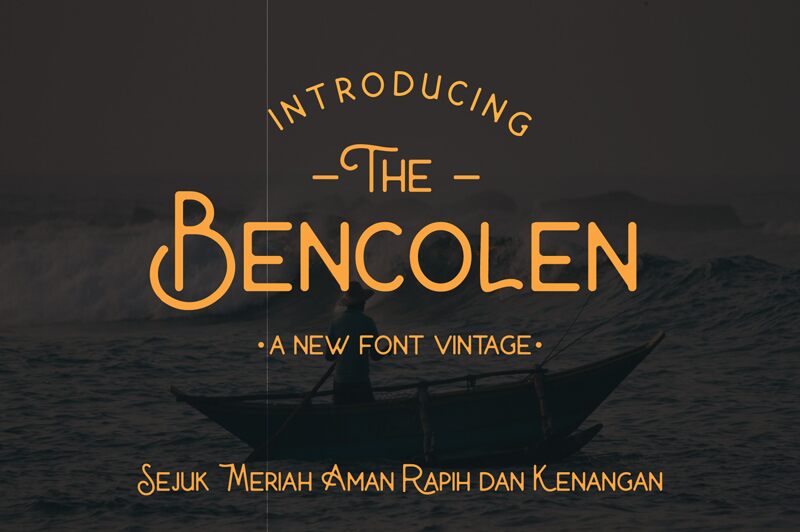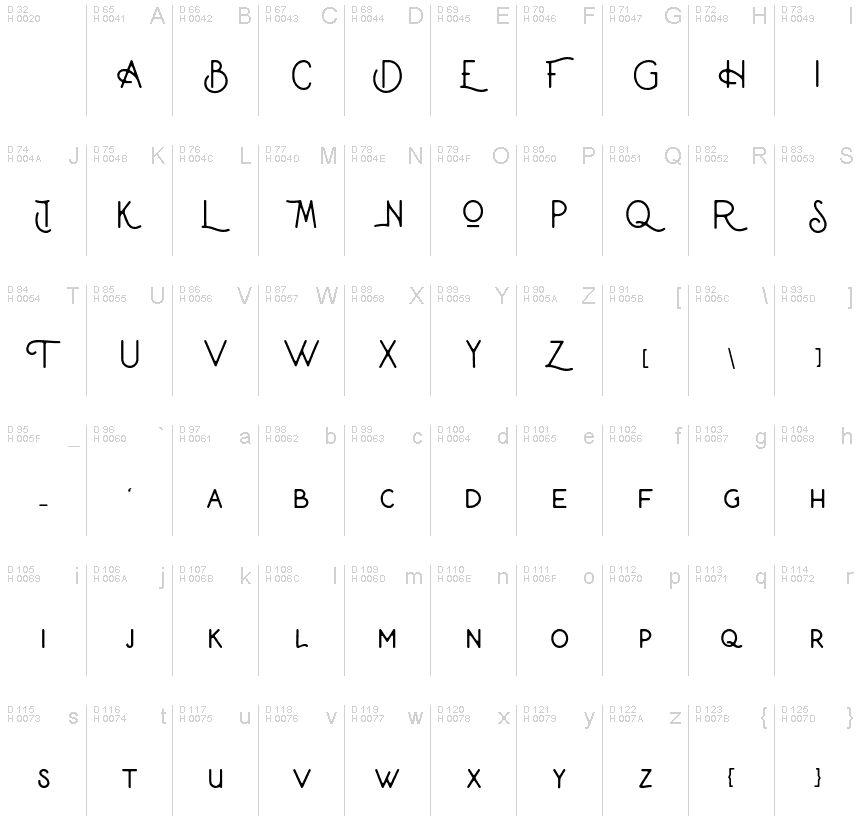
The Bencolen Vintage Font
The Bencolen Vintage font by Graphicnika is a display font that exudes retro charm. With its semi-light weight, this typeface is perfect for projects that require a touch of vintage flair without overwhelming the design. Use it for logos, packaging, posters, and other print materials that need to stand out. Its unique character set will also work well in digital designs such as websites and social media graphics. This versatile font can be paired with both modern and traditional elements, making it an excellent choice for any project that needs a touch of nostalgia.